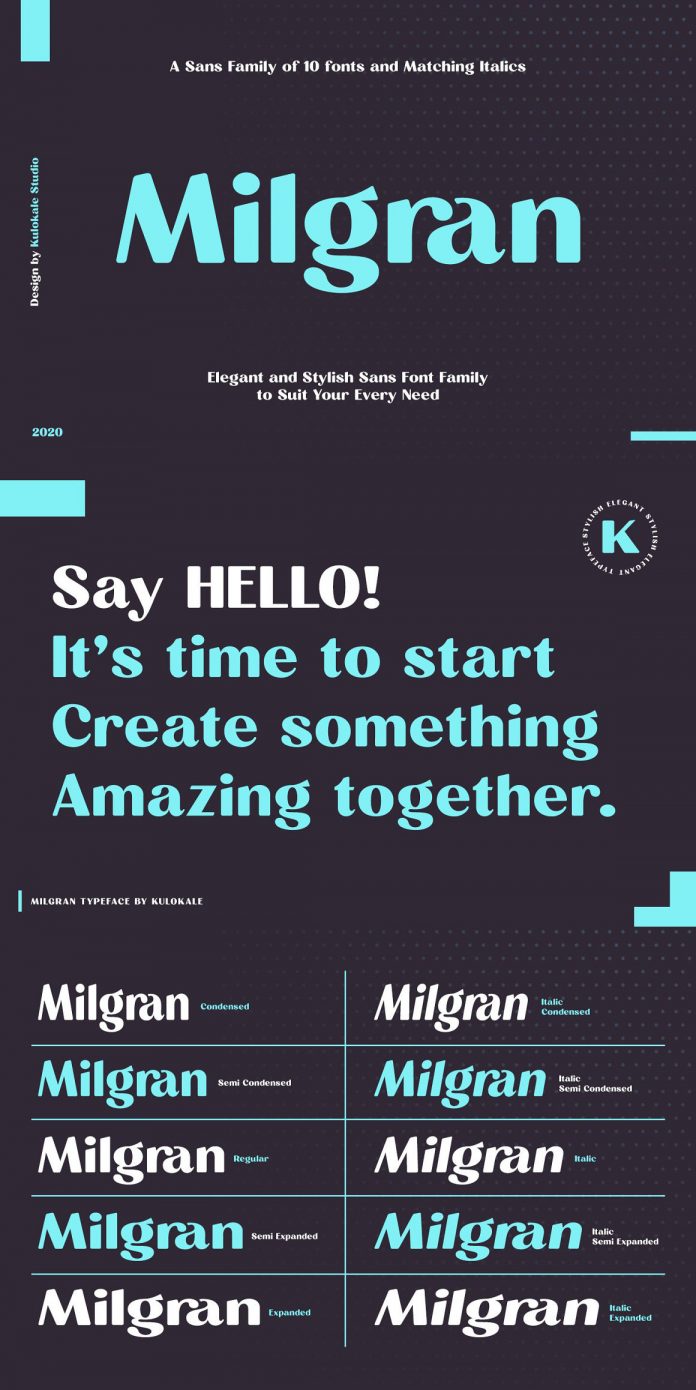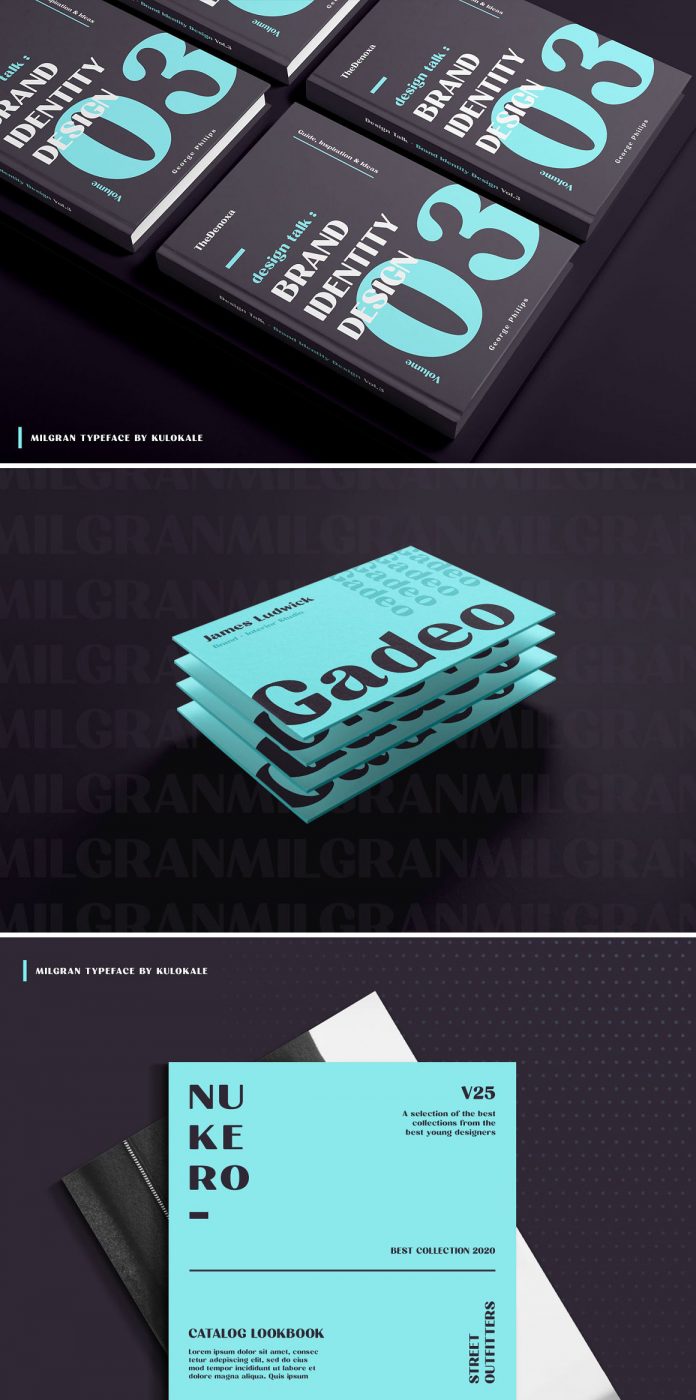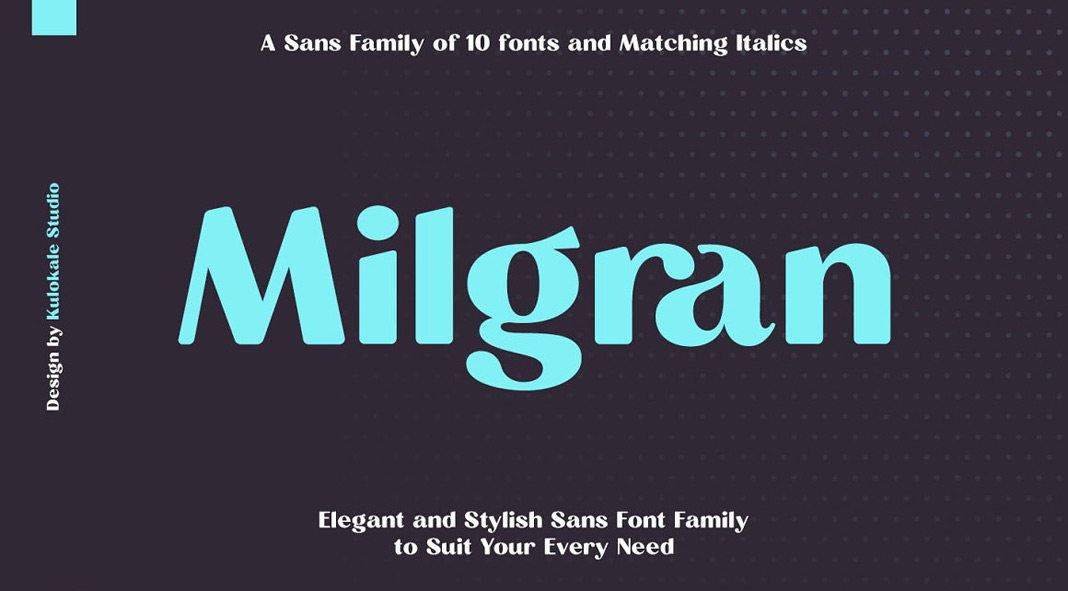
Milgran, an elegant font family that combines modern typography with a touch of vintage.
As we mentioned in our article about the top ten graphic design trends for 2021, vintage-inspired typefaces are particularly popular this year. Published just recently by the team of type foundry Kulokale, Milgran is an elegant font family that masterfully combines modern typography with lovely vintage styles. Consisting of 10 fonts including 5 weights plus matching italics, the Migran font family is well suited for a wide range of typographic work such as advertising, branding, logotypes, packaging, titles, headlines, editorial design, etc. With software that supports OpenType features such as Adobe Illustrator, Adobe Photoshop, or Adobe InDesign, you can make the most out of this beautiful font family. Just click on one of the following links to get further information.